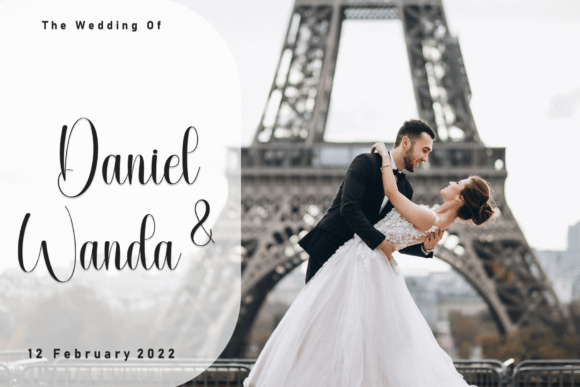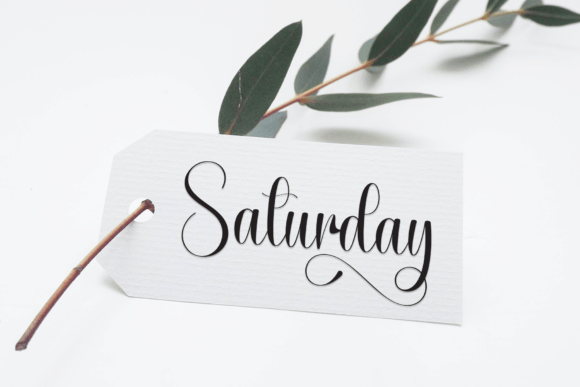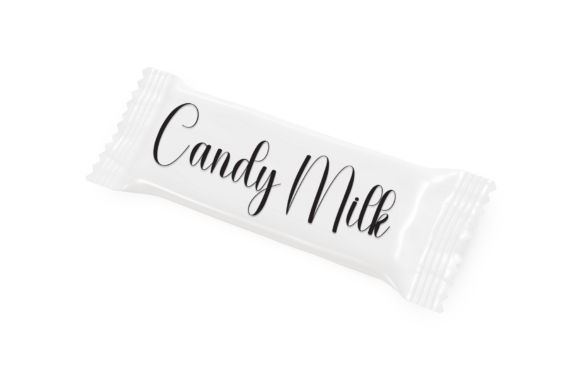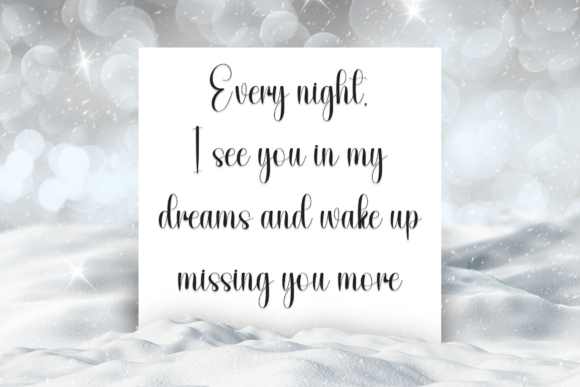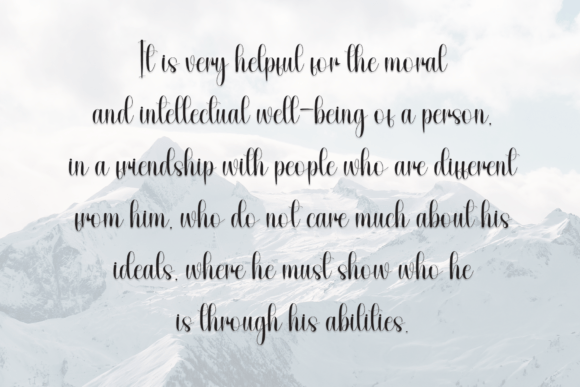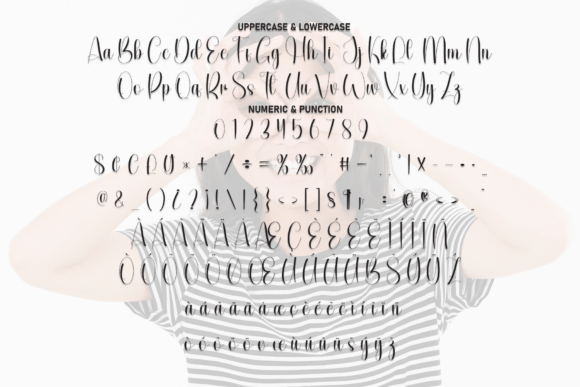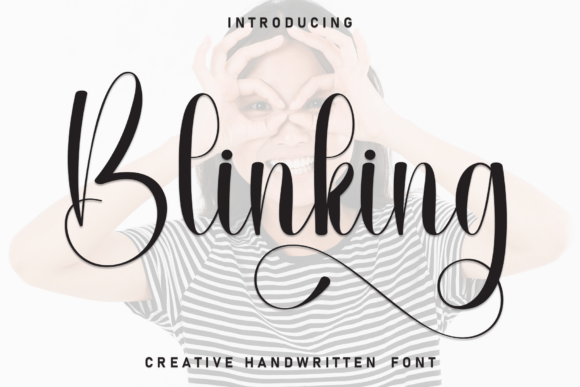
Introducing Blinking Font: The Ultimate Choice for Whimsical Designs
Are you a designer or crafter looking for a unique and enchanting font to add a touch of magic to your wedding invitations, cards, or any other design project? Look no further than Blinking Font, a beautiful handwritten script font that exudes joy, whimsicality, and creative playfulness. In this article, we’ll dive into the world of Blinking Font and explore its features, benefits, and uses.
The Charm of Blinking Font
Blinking Font is a one-of-a-kind handwritten script font that boasts an irresistibly inviting charm. Its amicable and welcoming presence makes it an idyllic option for designers and crafters who want to infuse an element of creative playfulness into their designs. Whether you’re creating wedding invitations, greeting cards, or any other design project, Blinking Font is sure to elevate your design and make it stand out.
Unique Essence of Joy and Whimsicality
Blinking Font carries a unique essence of joy and whimsicality that is sure to captivate your audience. Its merry charm and playful strokes make it perfect for designs that require a touch of fun and creativity. With Blinking Font, you can add a dash of personality to your designs and make them more engaging and entertaining.
Elevate Your Designs with Blinking Font
Blinking Font is more than just a font – it’s a design statement. With its elegant and flowing strokes, it can transform any design into an attractive centerpiece that effortlessly entertains and engages with its merry charm. Whether you’re a professional designer or a crafter, Blinking Font is sure to take your designs to the next level.
Blinking Font is particularly perfect for wedding invitations and cards. Its whimsical and playful nature makes it an excellent choice for couples who want to add a touch of personality to their wedding stationery. With Blinking Font, you can create beautiful and unique wedding invitations that will set the tone for the big day.
Benefits of Using Blinking Font
So, what are the benefits of using Blinking Font? Here are a few:
- Unique and eye-catching designs: Blinking Font is a one-of-a-kind font that will make your designs stand out from the crowd.
- Whimsical and playful: Blinking Font adds a touch of fun and creativity to your designs, making them more engaging and entertaining.
- Perfect for wedding invitations and cards: Blinking Font is particularly perfect for wedding invitations and cards, adding a touch of personality and whimsy to your wedding stationery.
In conclusion, Blinking Font is a unique and enchanting handwritten script font that is perfect for designers and crafters who want to add a touch of magic to their designs. With its whimsical and playful nature, it’s particularly perfect for wedding invitations and cards. So, why not give Blinking Font a try and experience the sweetness and fun-loving aura encapsulated in each stroke of this one-of-a-kind font?